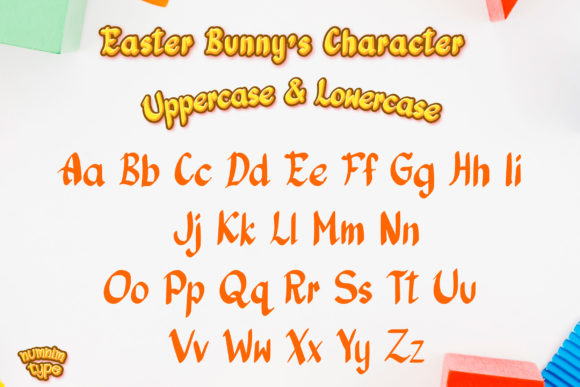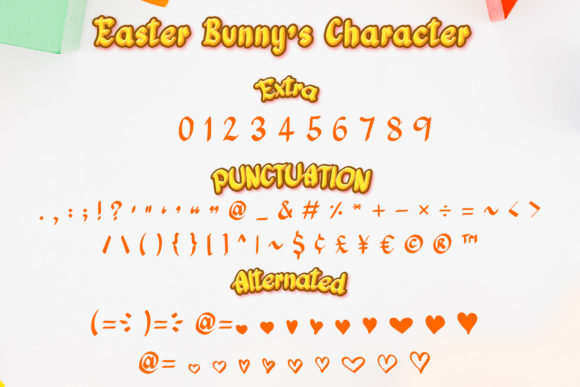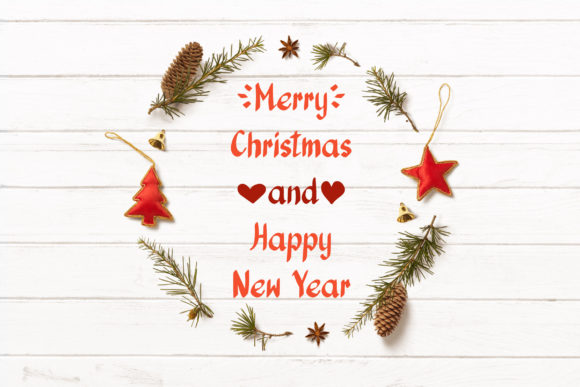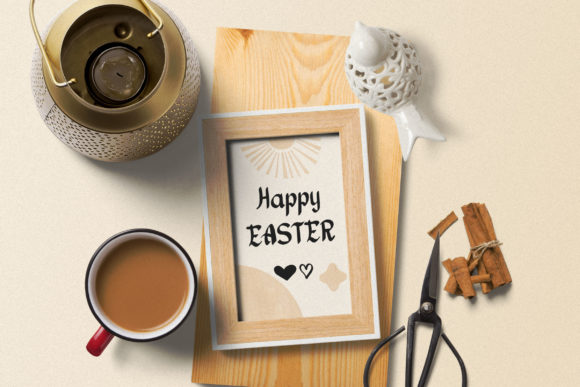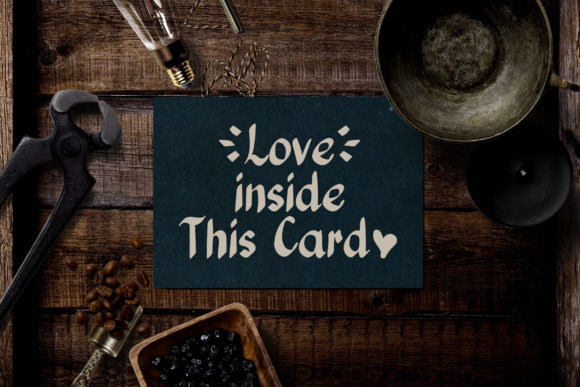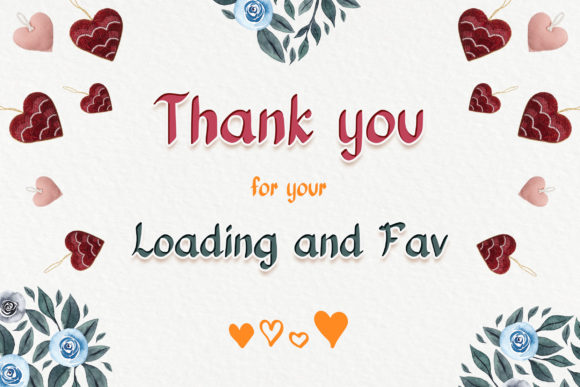
Easter Bunny Font: The Perfect Addition to Your Easter Designs
Are you looking for a font that captures the essence of Easter? Look no further than the Easter Bunny Font! This joyful and friendly handwritten font is perfect for creating lovely designs for school or children-related projects. With its cute doodle elements and sweet, versatile style, you’ll fall in love with this font and want to use it again and again.
What is Easter Bunny Font?
Easter Bunny Font is a unique and charming handwritten font that features cute doodle elements, making it perfect for Easter-themed designs. The font is designed to be sweet and versatile, allowing you to use it for a variety of projects, from school worksheets to children’s party invitations. Its playful and friendly style is sure to bring a smile to anyone’s face.
Key Features of Easter Bunny Font
- Handwritten style: Easter Bunny Font has a beautiful, handwritten style that gives it a personal and friendly touch.
- Cute doodle elements: The font features adorable doodle elements that add a playful touch to your designs.
- Sweet and versatile: The font’s sweet and versatile style makes it perfect for a wide range of projects, from school materials to children’s party decorations.
Uses for Easter Bunny Font
Easter Bunny Font is perfect for a variety of Easter-themed projects, including:
- School worksheets: Create fun and engaging worksheets for your students with Easter Bunny Font.
- Children’s party invitations: Design adorable invitations for Easter parties and events.
- Easter crafts: Use Easter Bunny Font to create cute and colorful Easter crafts, such as Easter egg decorations and bunny-themed cards.
- Social media graphics: Create eye-catching social media graphics for Easter-themed posts and promotions.
Tips for Using Easter Bunny Font
Here are some tips for getting the most out of Easter Bunny Font:
- Experiment with colors: Easter Bunny Font looks great in a variety of colors, so don’t be afraid to experiment and find the perfect hue for your design.
- Mix and match with other fonts: Combine Easter Bunny Font with other fonts to create unique and interesting typography.
- Add graphics and illustrations: Easter Bunny Font pairs perfectly with cute graphics and illustrations, so consider adding them to your design.